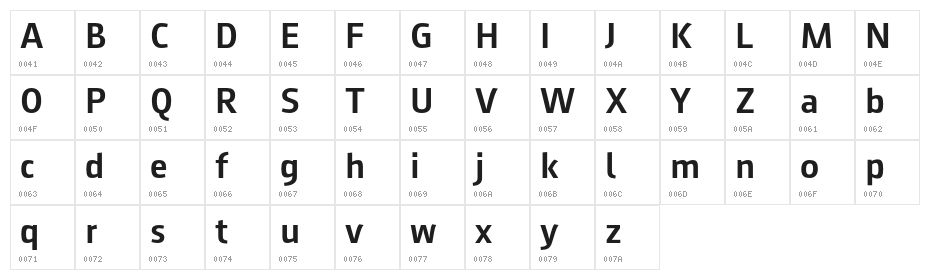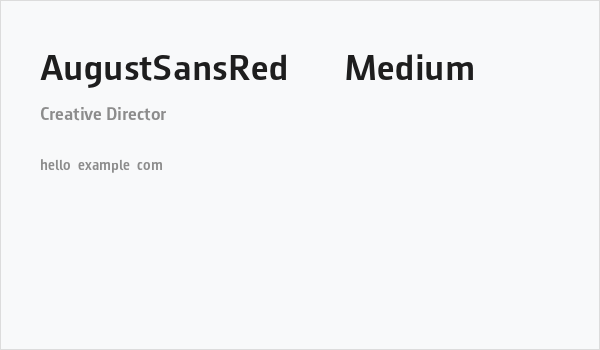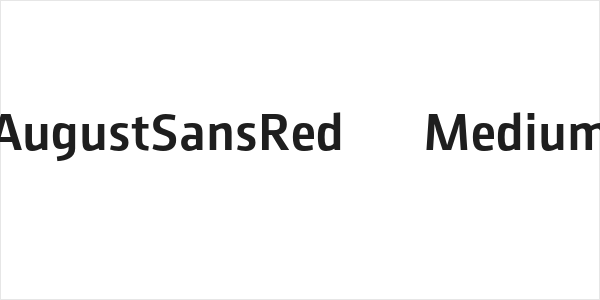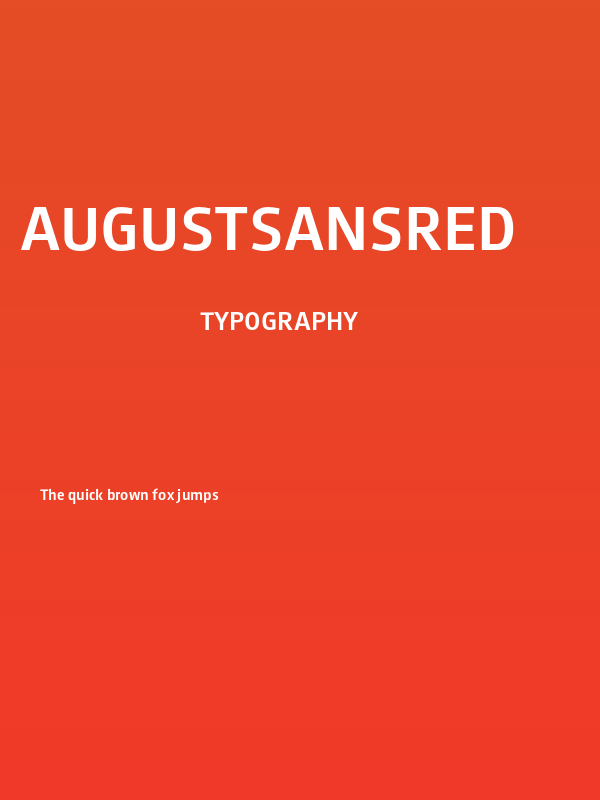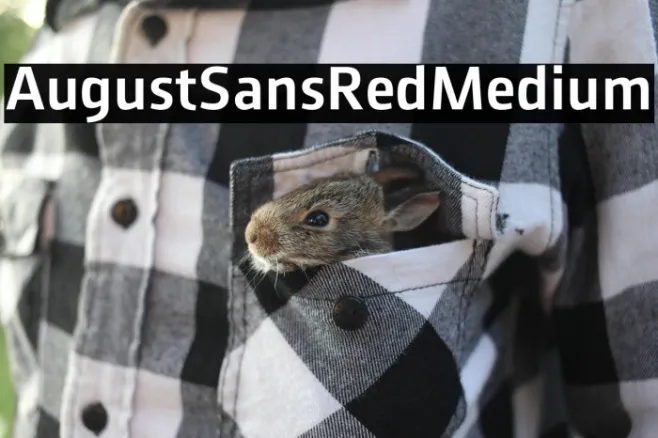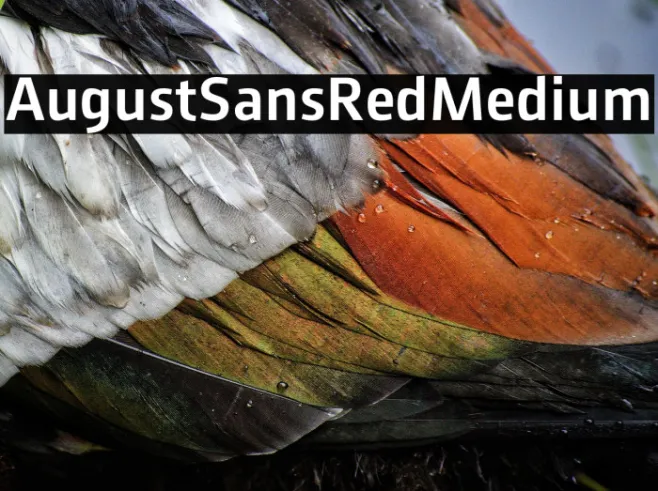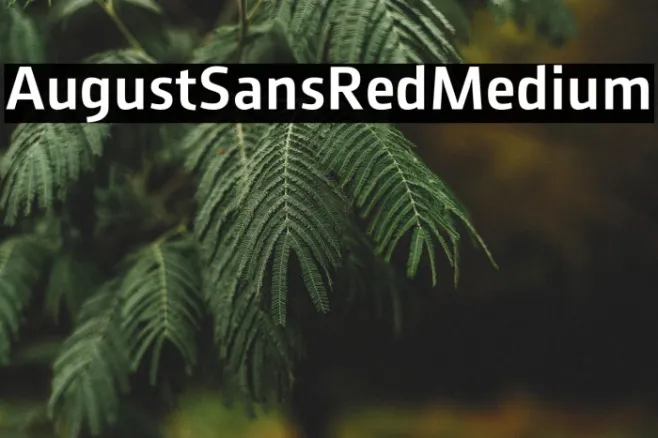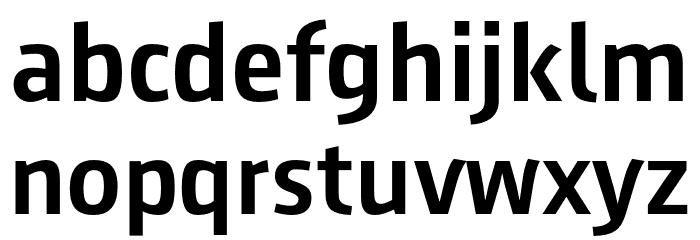
AugustSansRed-65Medium Font
AugustSansRed-65Medium Description
This typeface presents a clean and modern aesthetic with a sans-serif style. The characters are well-defined with a consistent stroke width, offering a balanced and professional look. The uppercase letters are bold and assertive, while the lowercase letters maintain a friendly and approachable appearance. The numerals are clear and easily readable, making them suitable for various applications. Special characters are distinct and integrate seamlessly with the overall design. The font's simplicity and clarity make it versatile for both digital and print media.
| Proposed Projects | Ideal for branding, web design, corporate materials, and editorial layouts. |